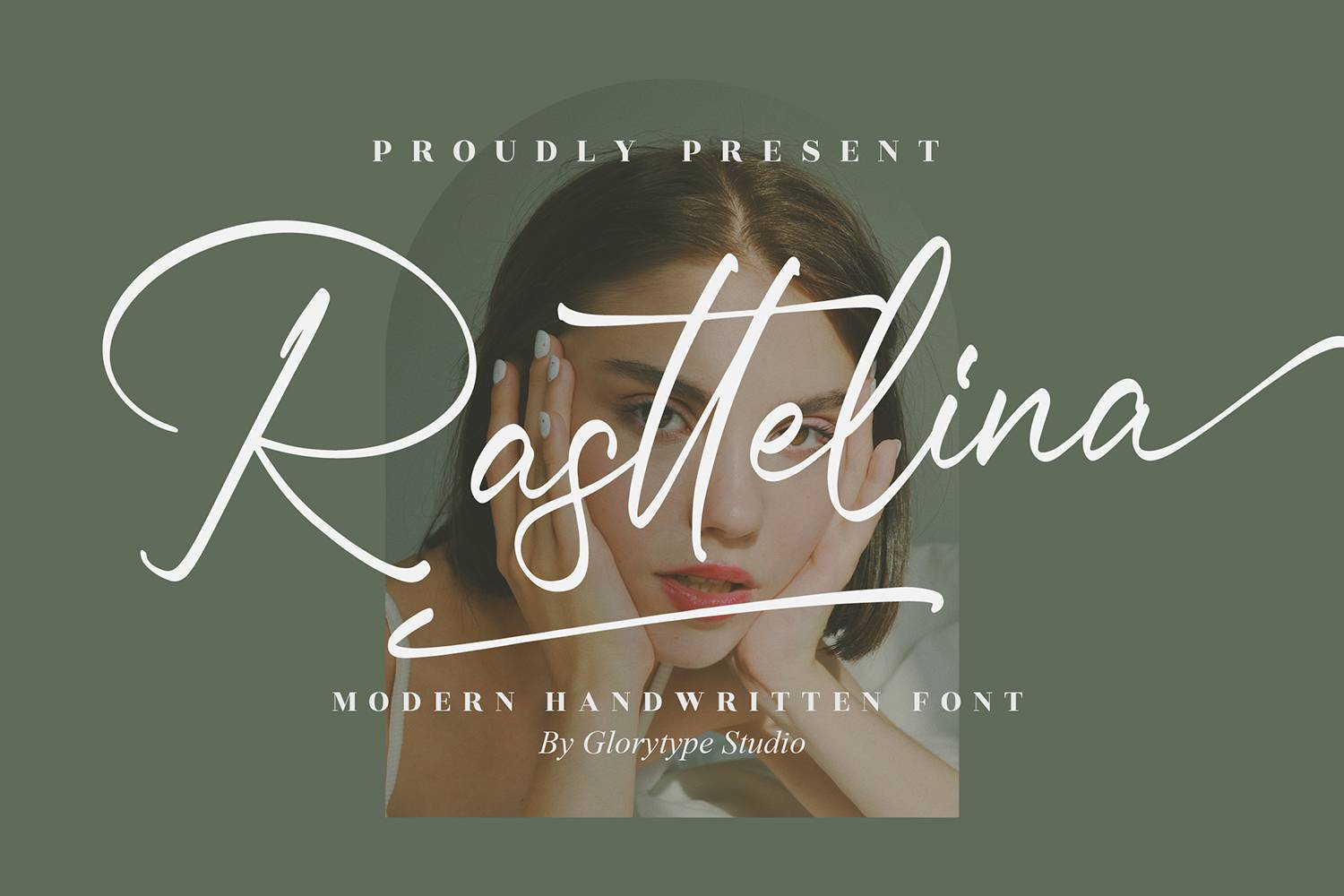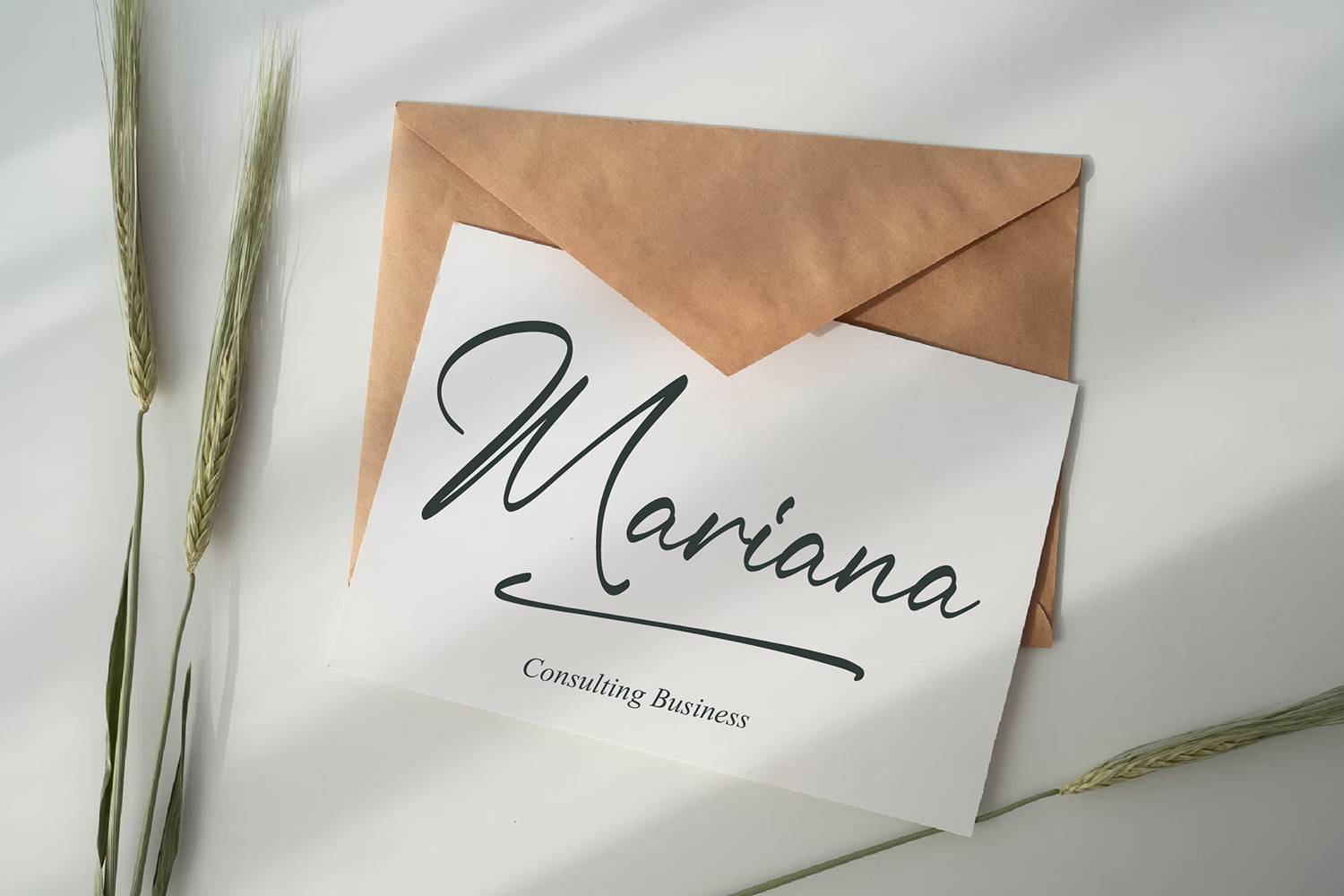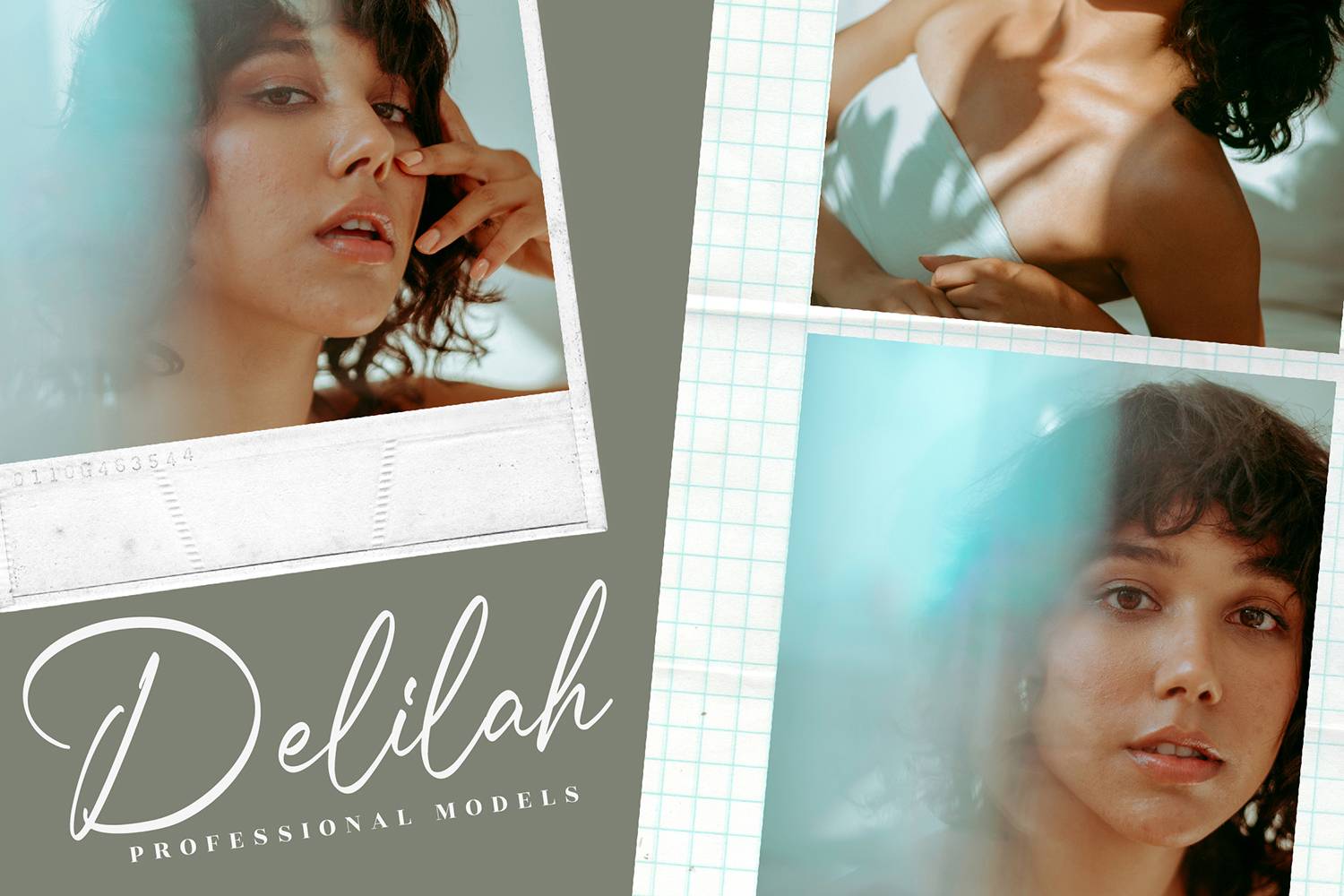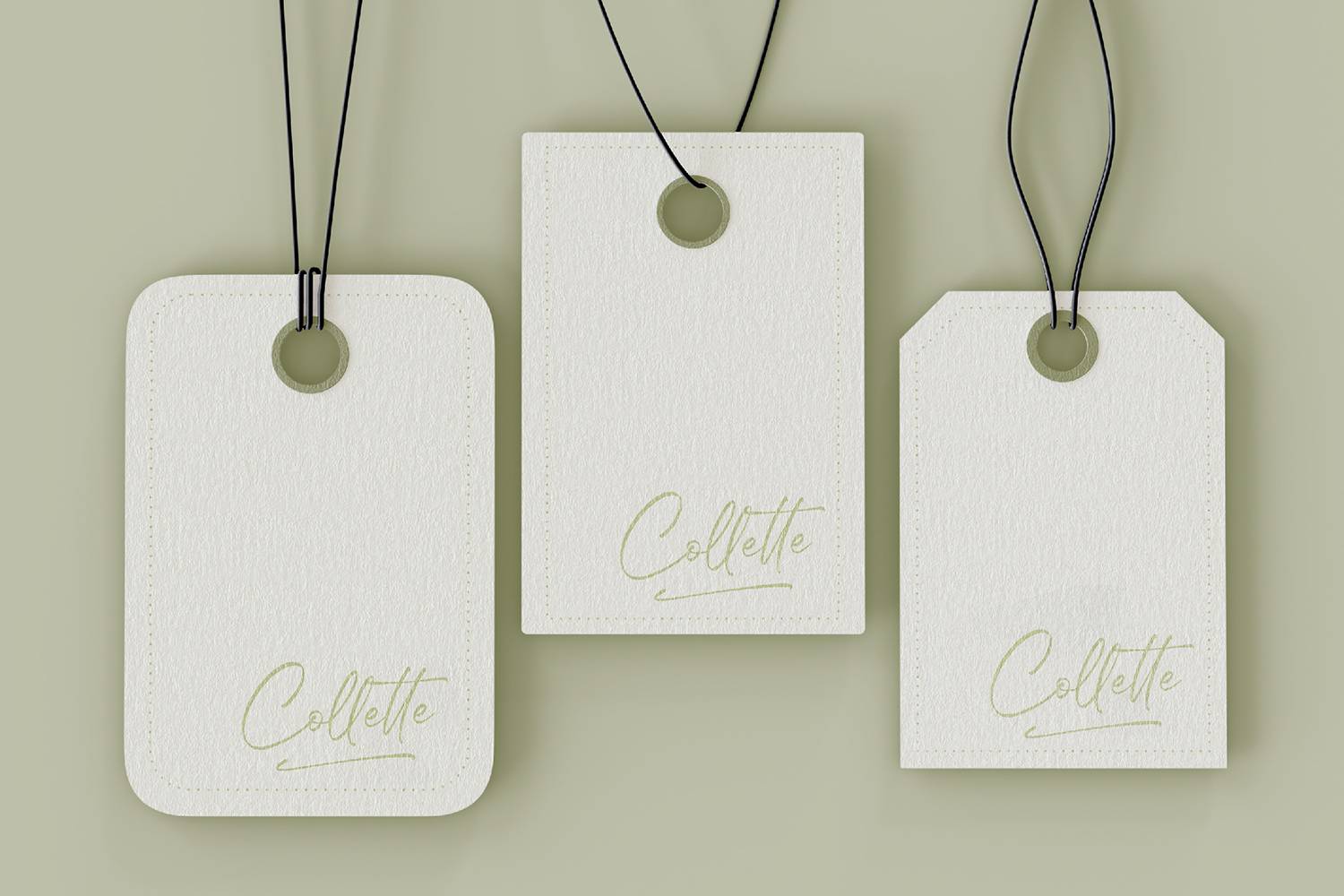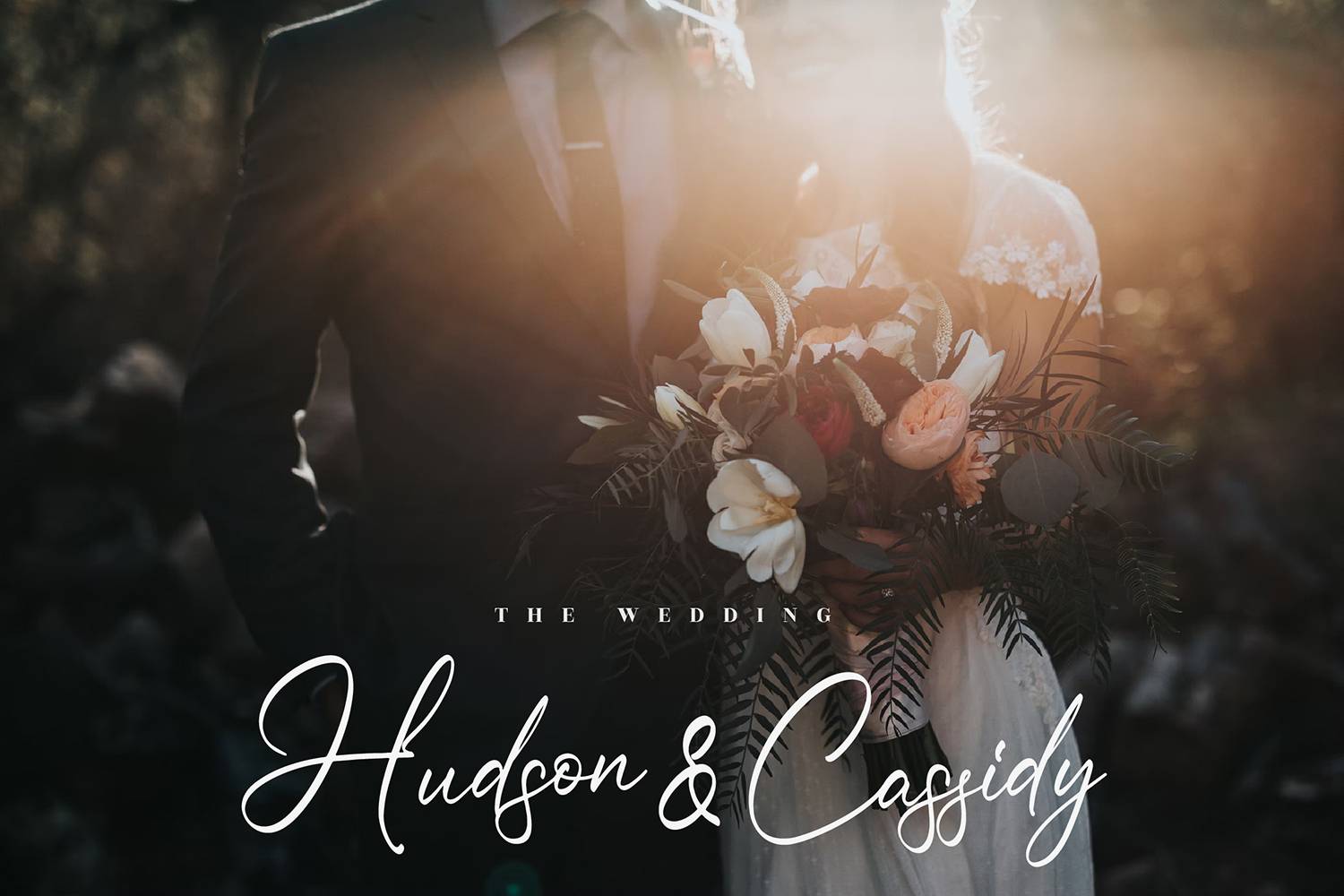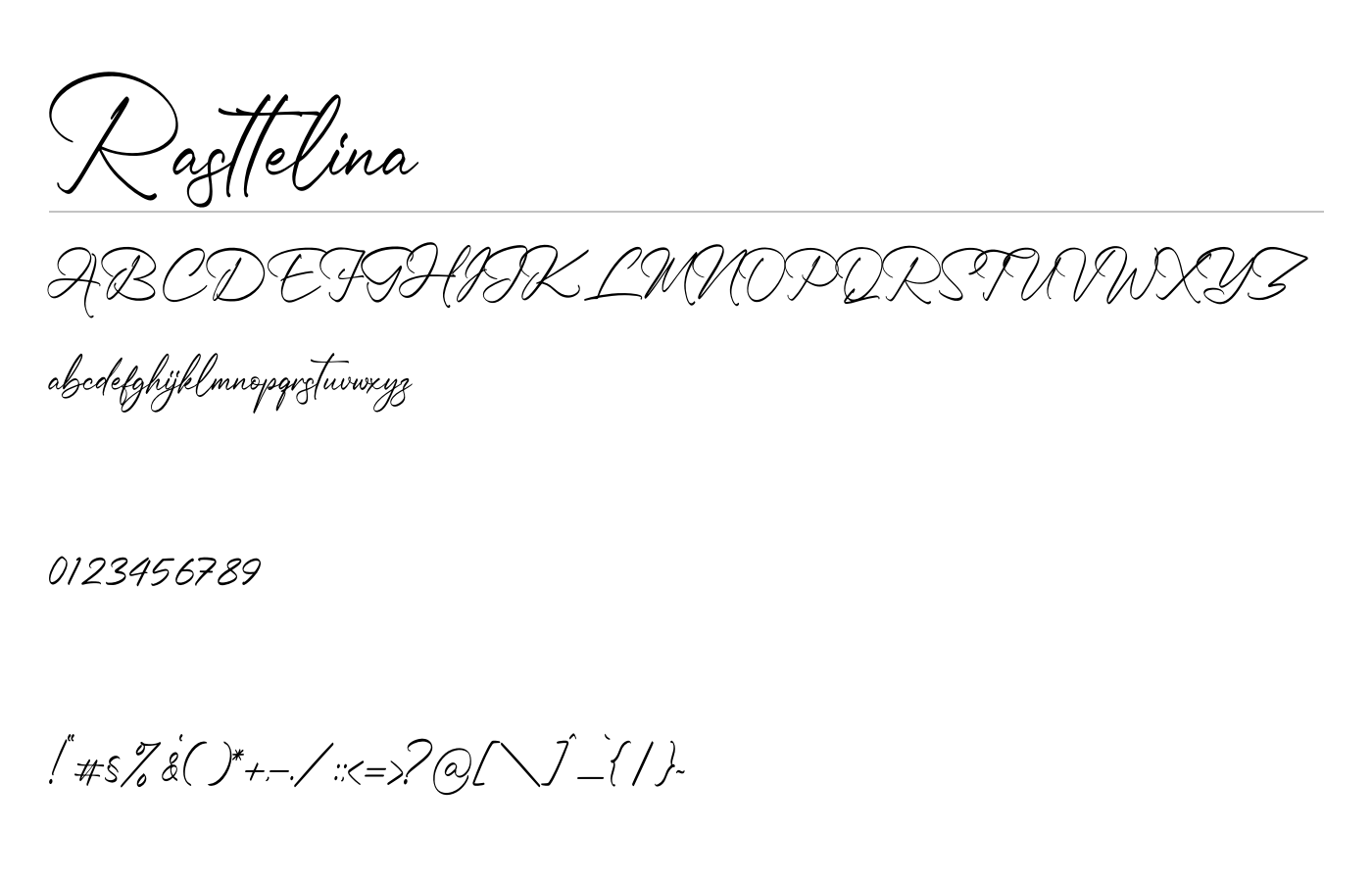
Rasttelina is an elegant, handwritten script font characterized by its delicate, flowing strokes and refined, cursive letterforms. It conveys a sense of sophistication and grace, making it perfect for luxury branding, wedding invitations, and stylish editorial headlines where a personal yet polished touch is desired. Its light weight and airy spacing enhance readability while maintaining an artistic and intimate feel.
Rasttelina Font
About Rasttelina Font
| Font family | Rasttelina Font |